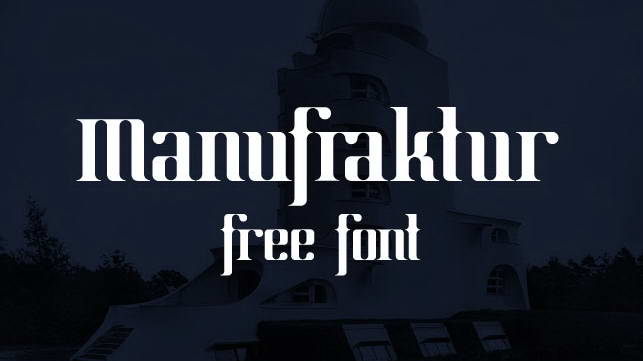
Download Manufraktur font, a modular display font inspired by retrofuturism that combines blackletter type (like Fraktur) with the styles that modern means of production (manufacturing) can provide.